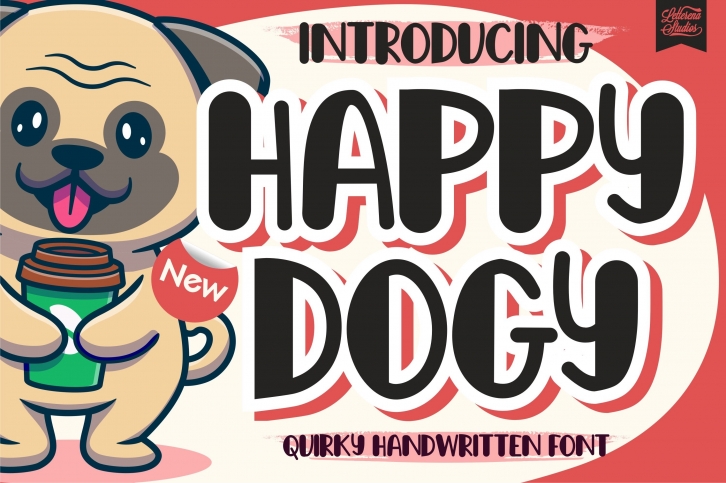
Happy Dogy is a great font that was designed by Letterena Studios. Imagine the amount of combinations you can create using this font! The archive is 2.42 MB and it was released on November 30, 2020. Happy Dogy looks beautiful on wedding invitations, greeting cards, logos, posters, labels, t-shirt designs, logos, business cards and is perfect for use in ink or watercolor works, fashion, magazines, packaging and food menus, children's books and more!